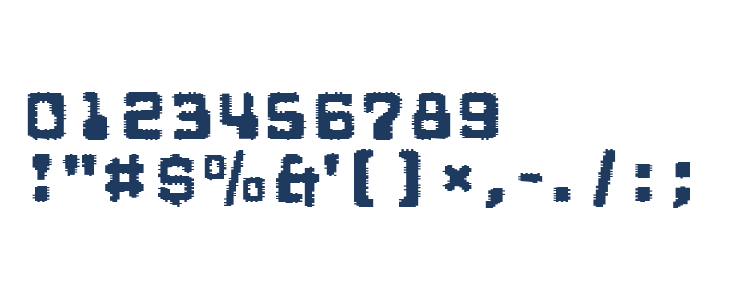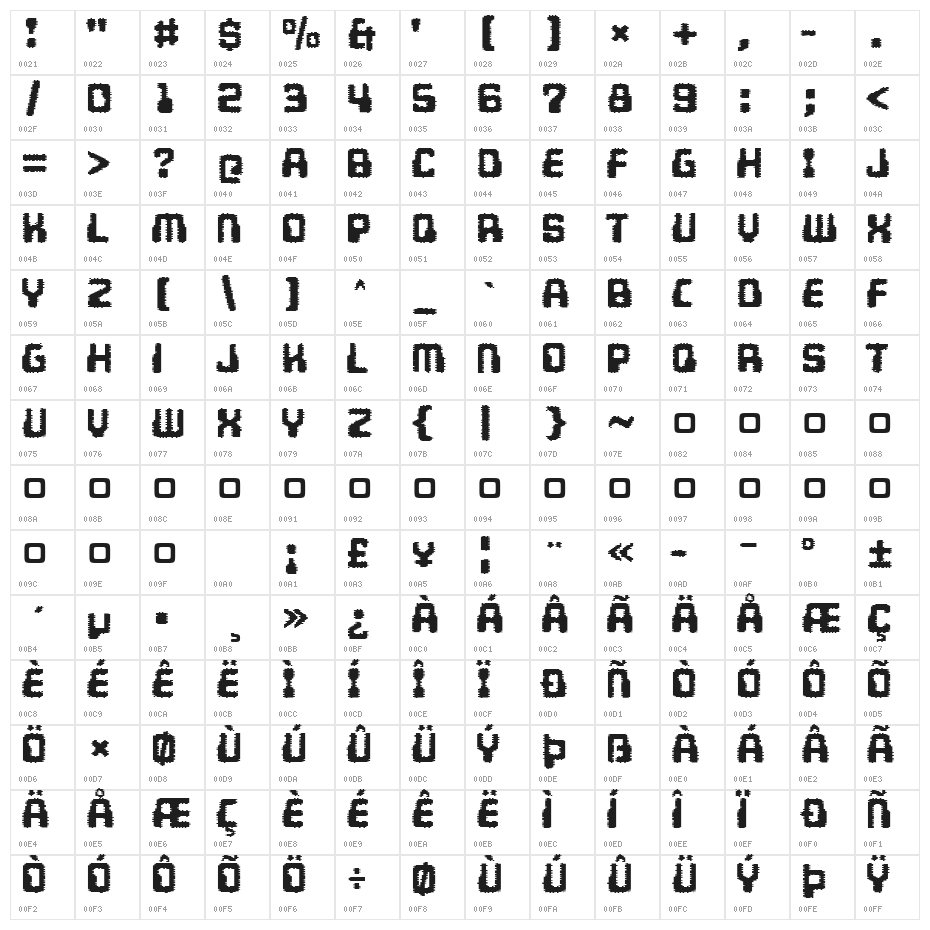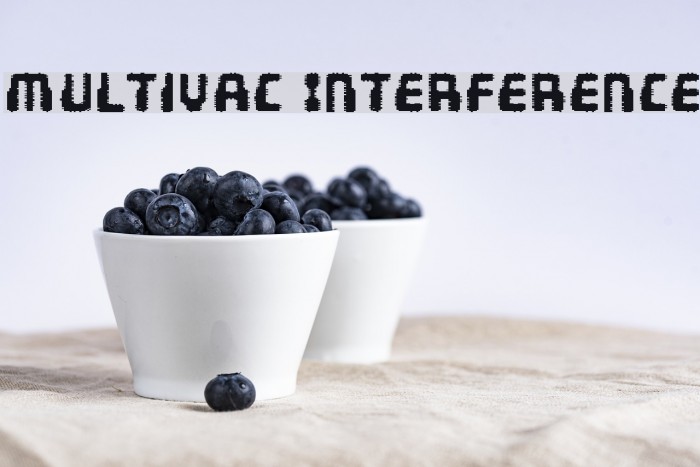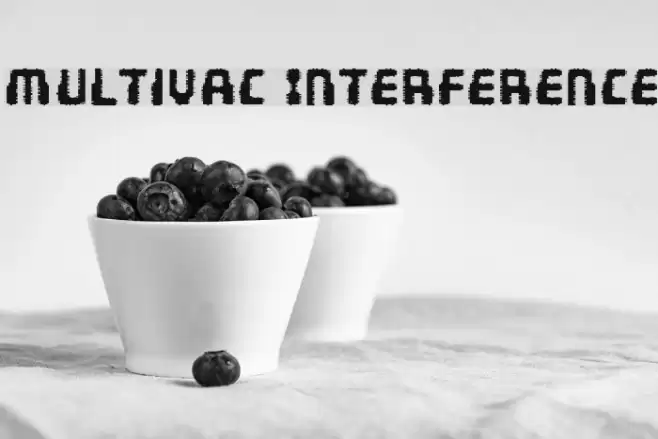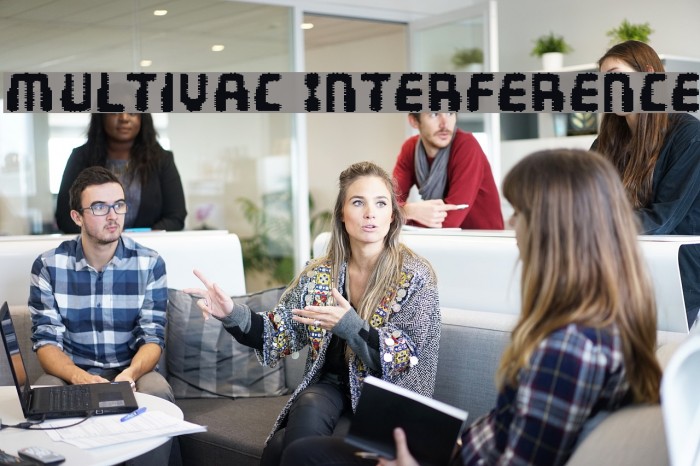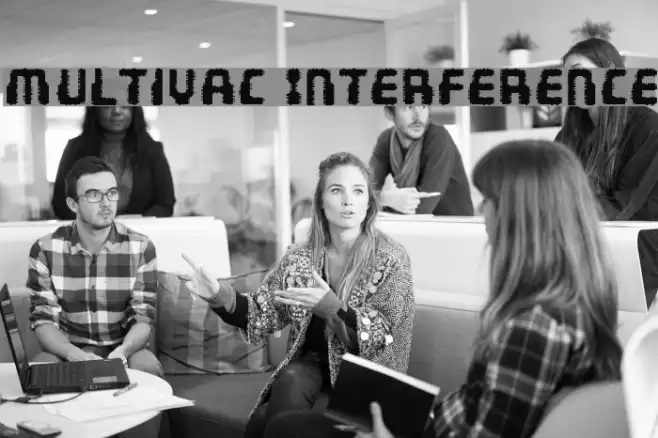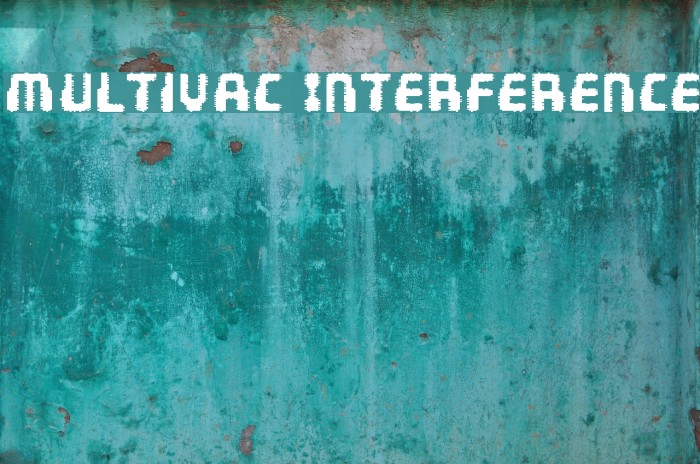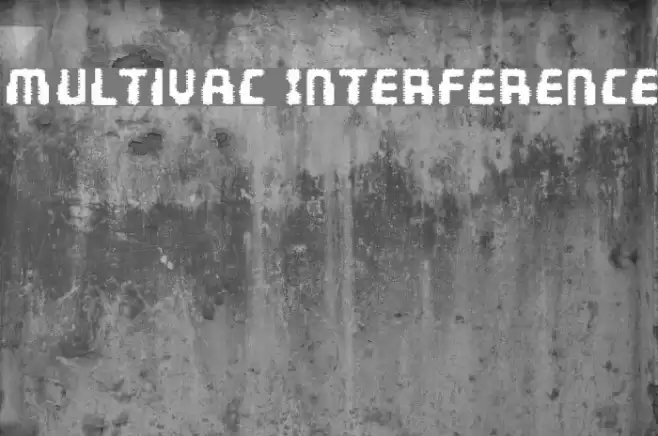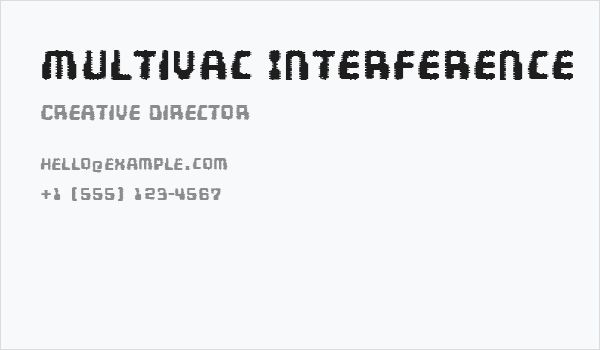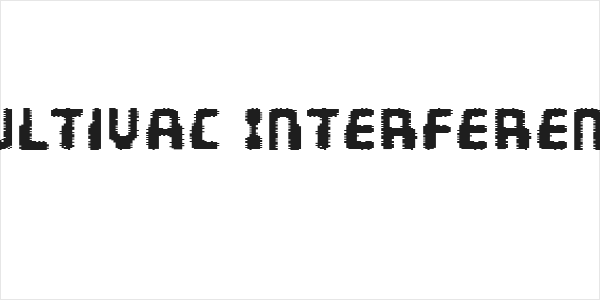
Multivac Interference Font
Multivac Interference Description
This font features a bold, pixelated style reminiscent of early digital displays and retro gaming aesthetics. The characters are blocky with a uniform thickness, giving them a strong, impactful presence. The edges are slightly rounded, adding a touch of softness to the otherwise rigid structure. This design choice enhances readability while maintaining a distinct, nostalgic feel. The font includes a full set of uppercase and lowercase letters, numbers, and a variety of special characters, making it versatile for various applications. Its unique style is ideal for projects that aim to evoke a sense of nostalgia or convey a tech-savvy, futuristic theme.
Overall StyleRetro, Digital
Proposed ProjectsIdeal for video game design, tech-themed posters, retro-style branding, and digital art projects.